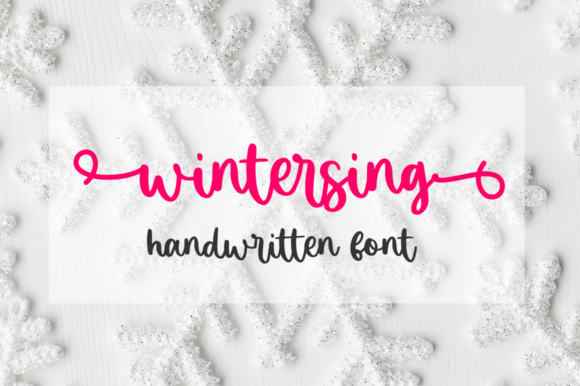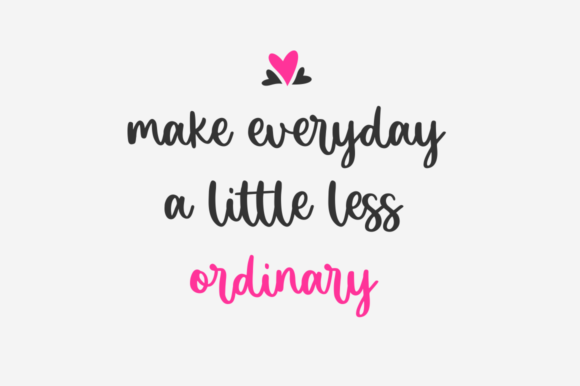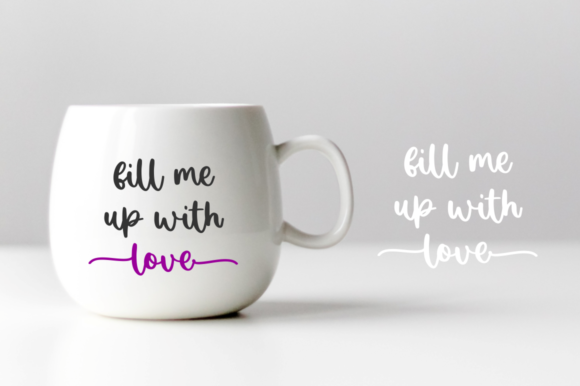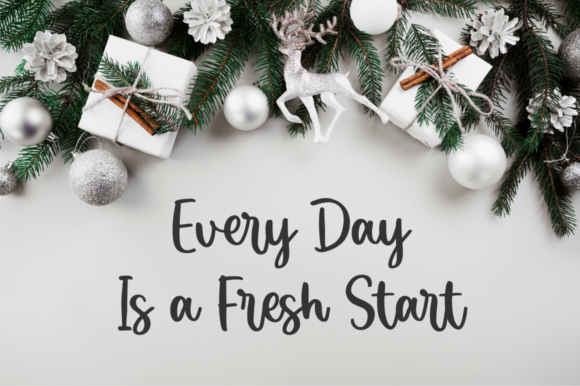
About Wintersing Font
Wintersing is a lovely handwritten font, perfect for crafting, branding, invitation, stationery, wedding designs, social media posts, advertisements, product packaging, product designs, label, photography, watermark, special events and more. Use this font to brighten up any of your projects!